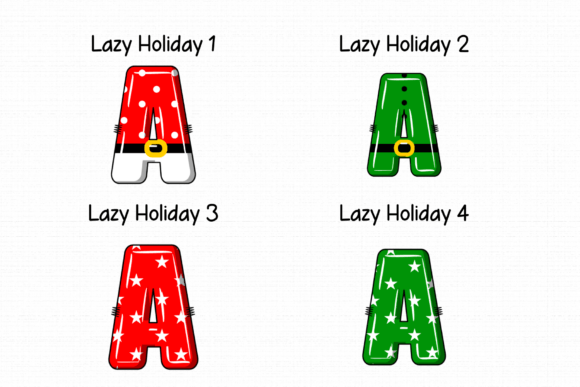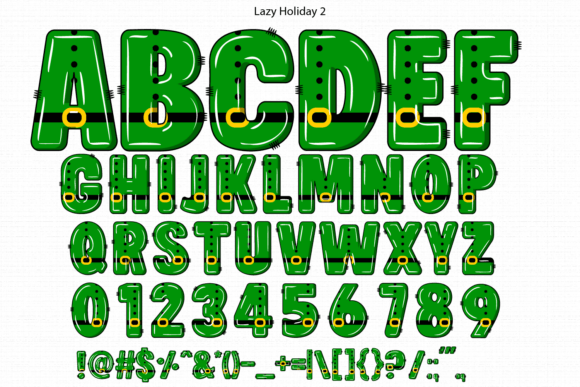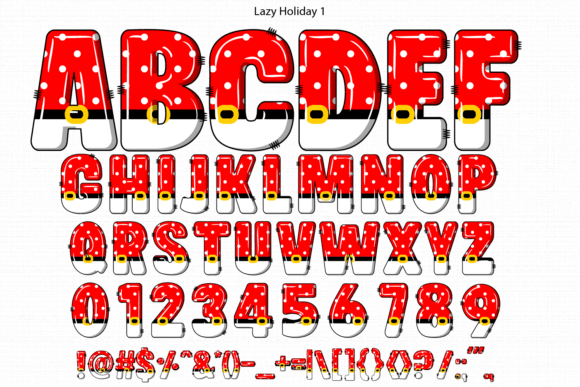
Lazy Holiday Font
About the Lazy Holiday Font
Discover the charm of Lazy Holiday Font. This font is a perfect blend of modern aesthetics and classic appeal. Immerse yourself in the spirit of the season with Lazy Holiday, a vibrant color font infused with a playful and authentic flair. A versatile choice, ideal for injecting a touch of festivity into all your cherished creative endeavors. Whether it’s logo designs, impactful branding, engaging advertisements, captivating invitations, heartfelt greeting cards, detailed planners, nostalgic photo albums, or charming decorations, Lazy Holiday adds that extra sparkle. Make it a part of your design repertoire and reap the magical outcomes it unfailingly brings to the table!